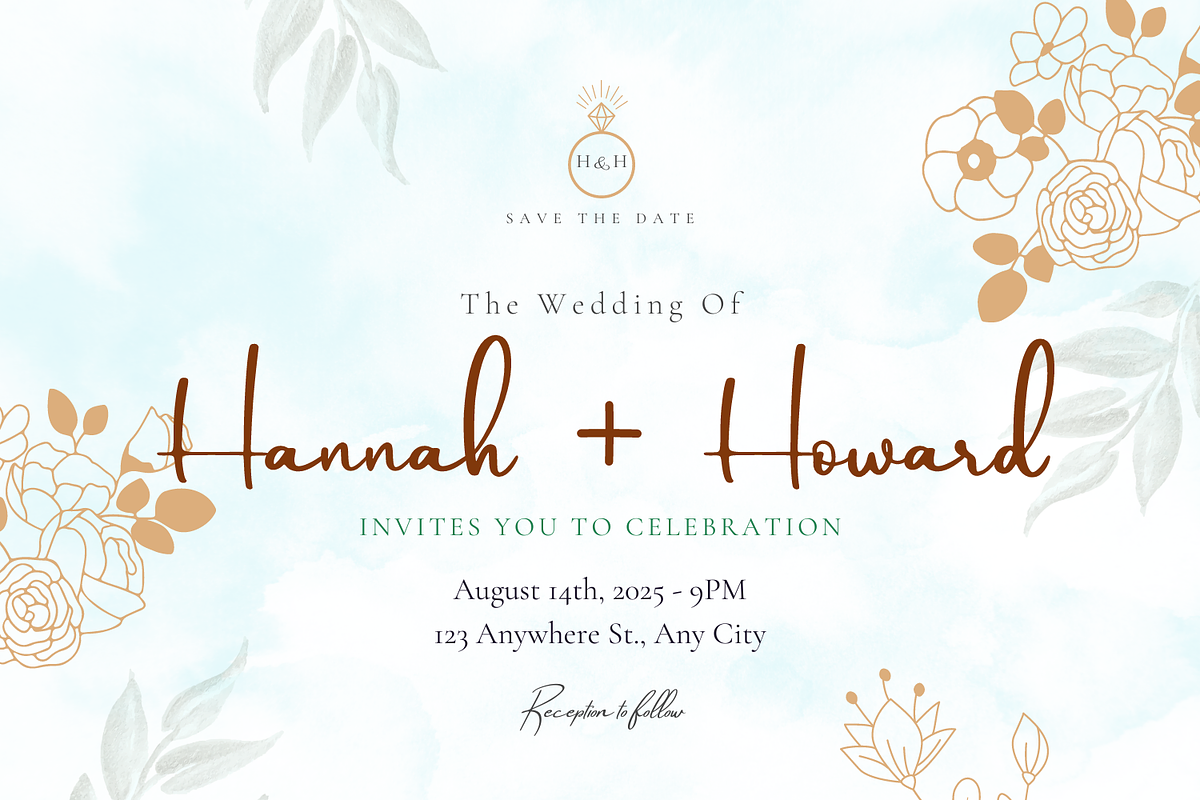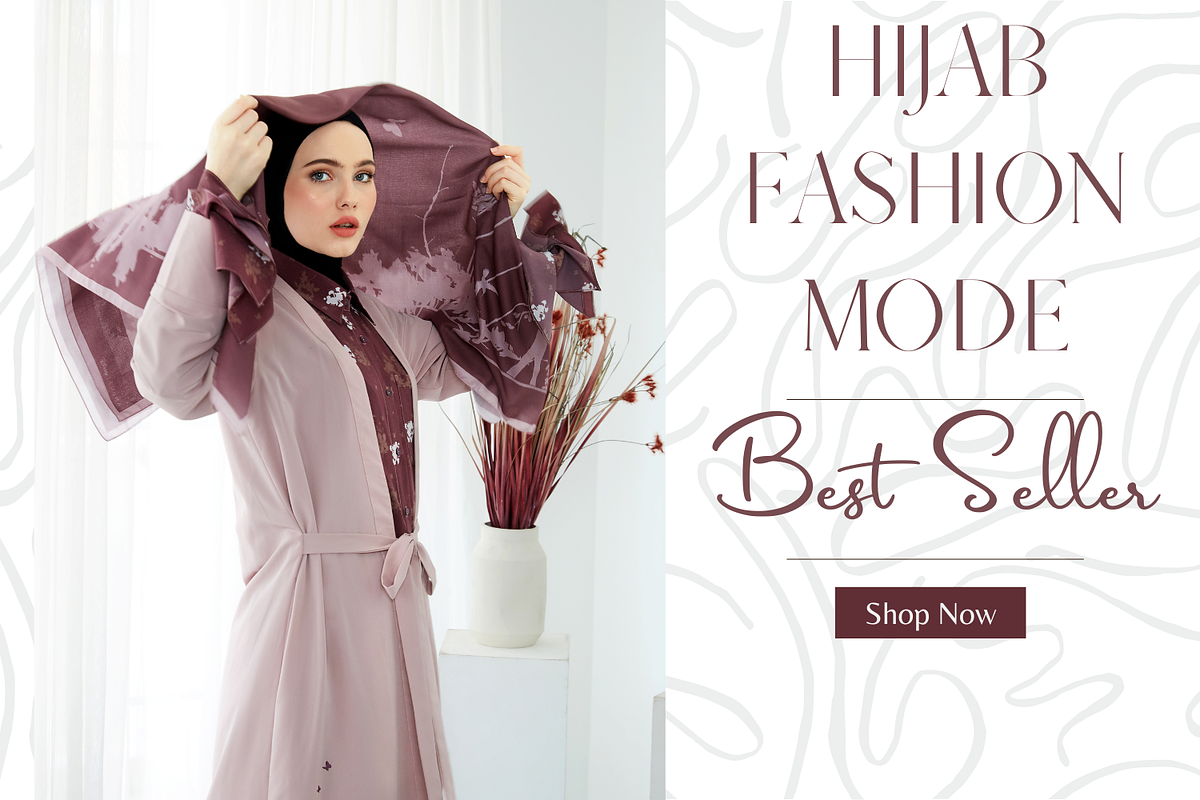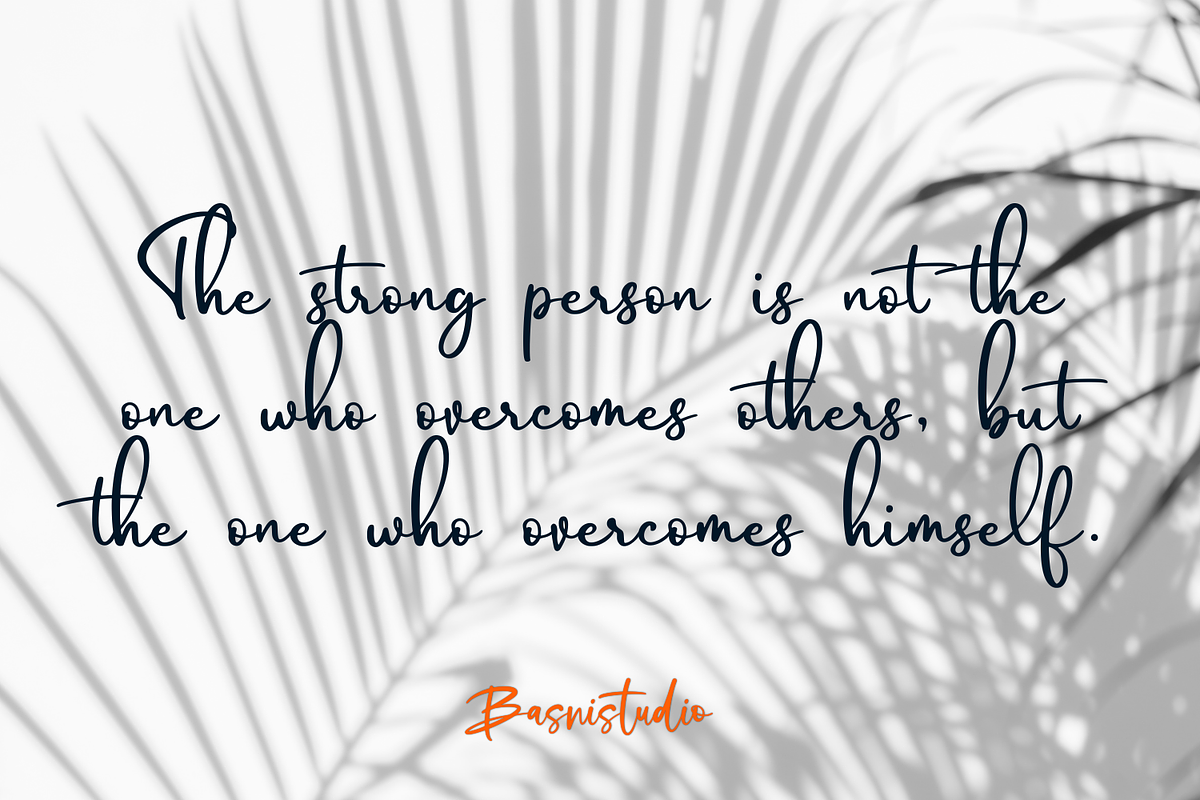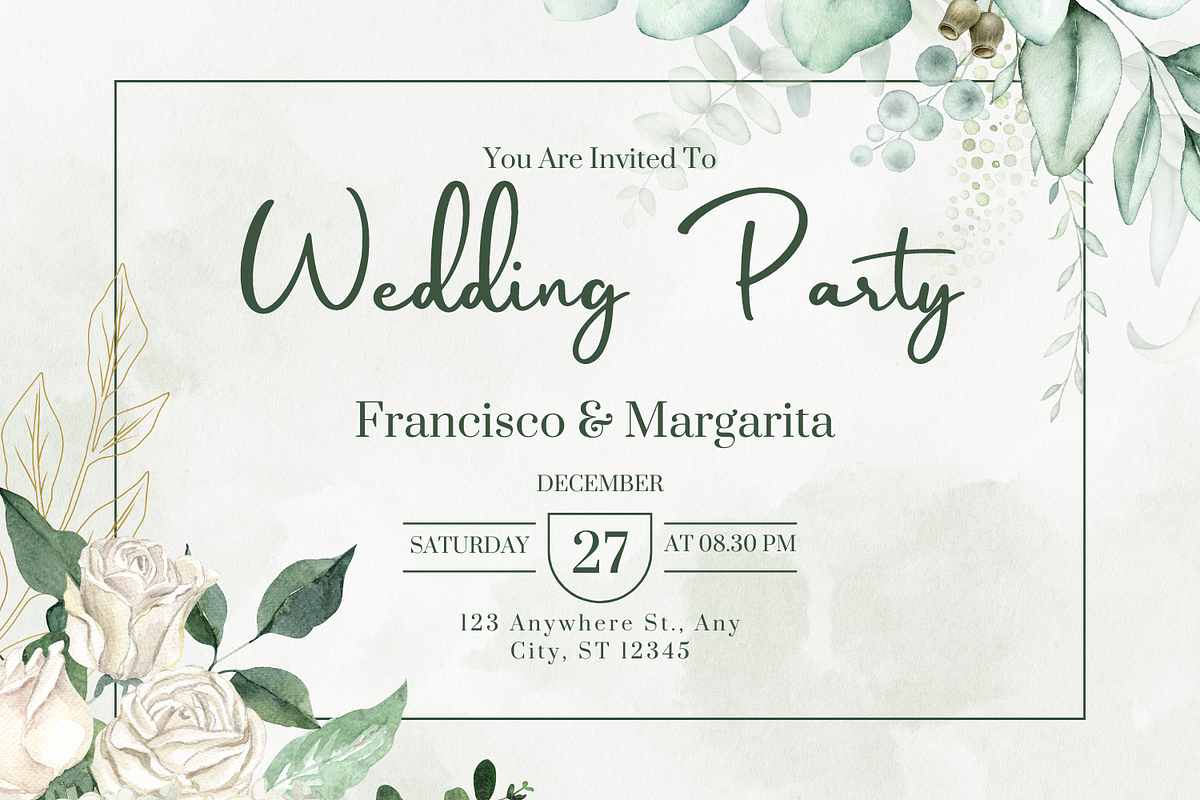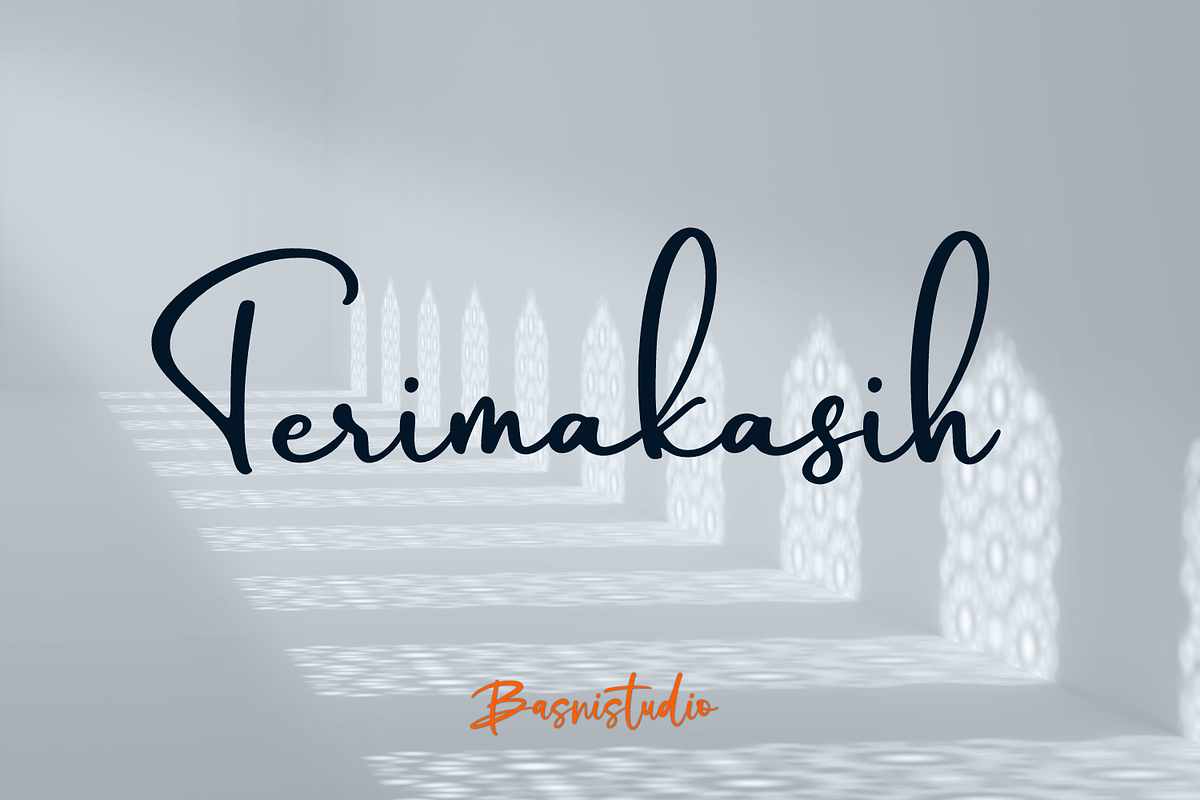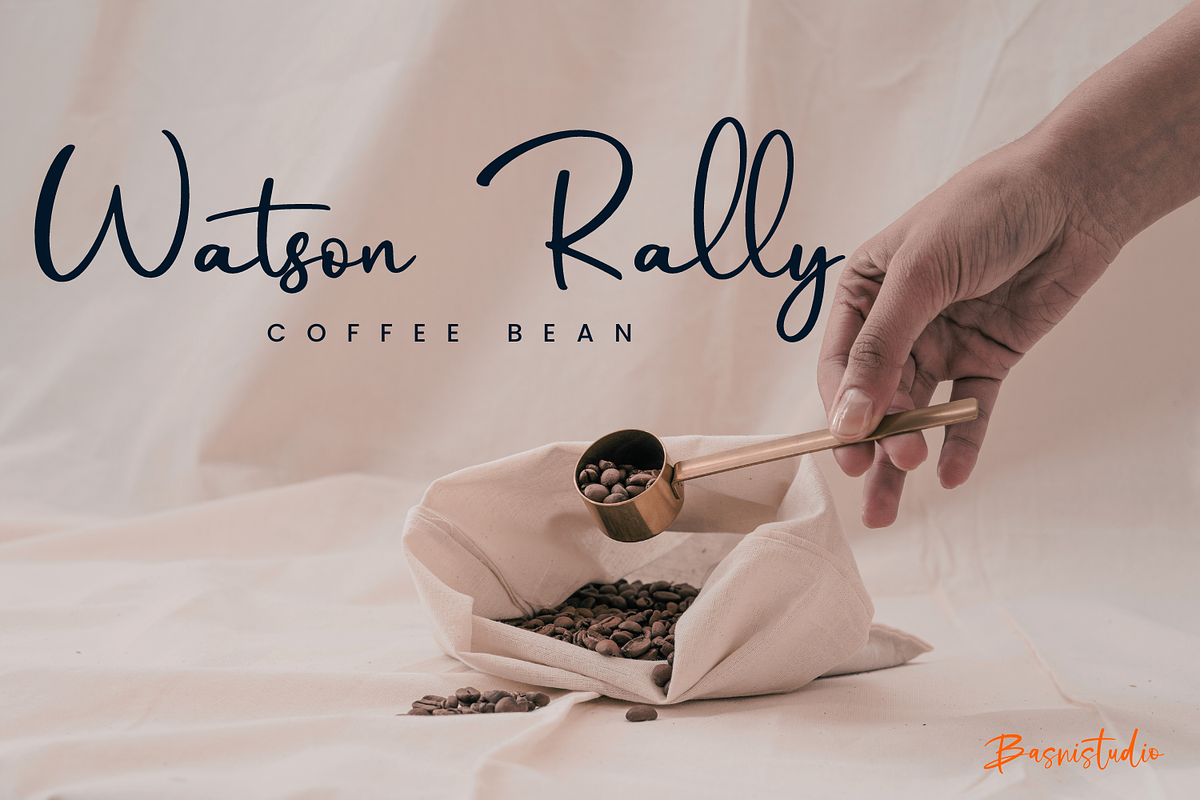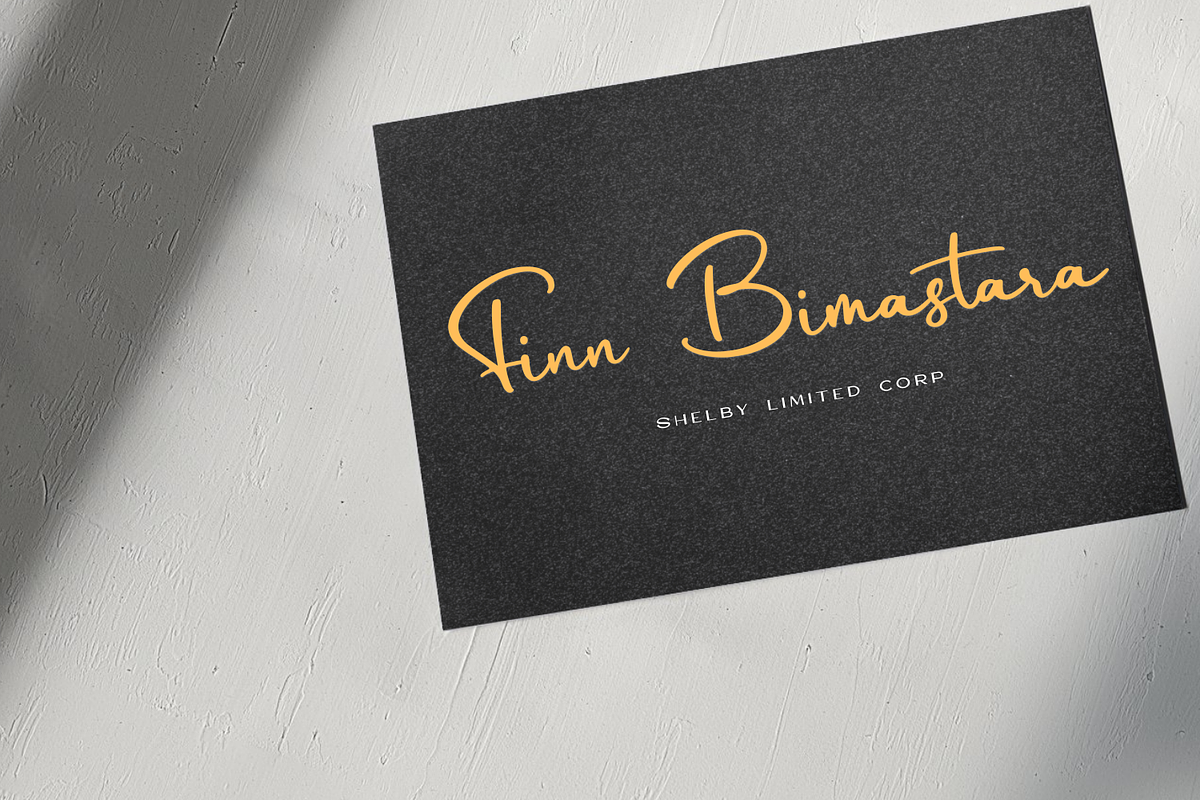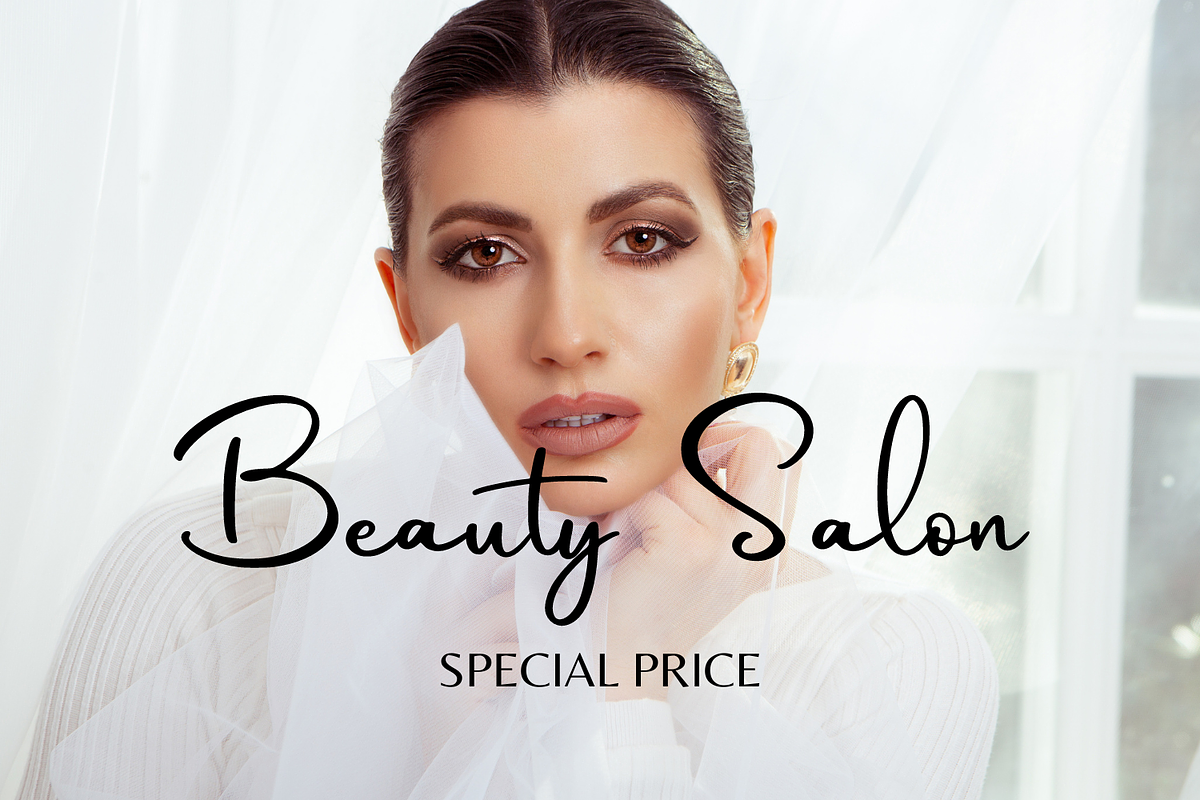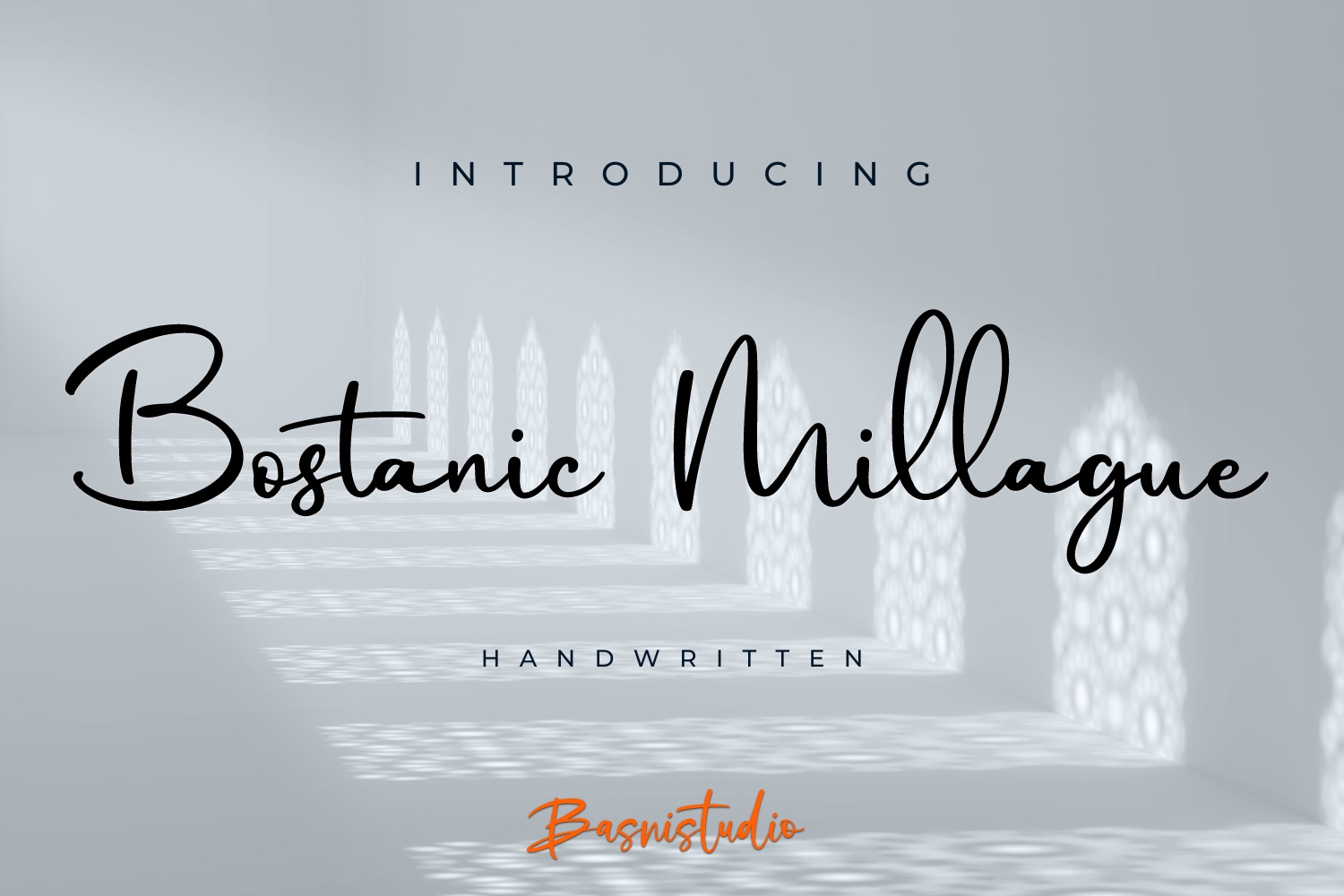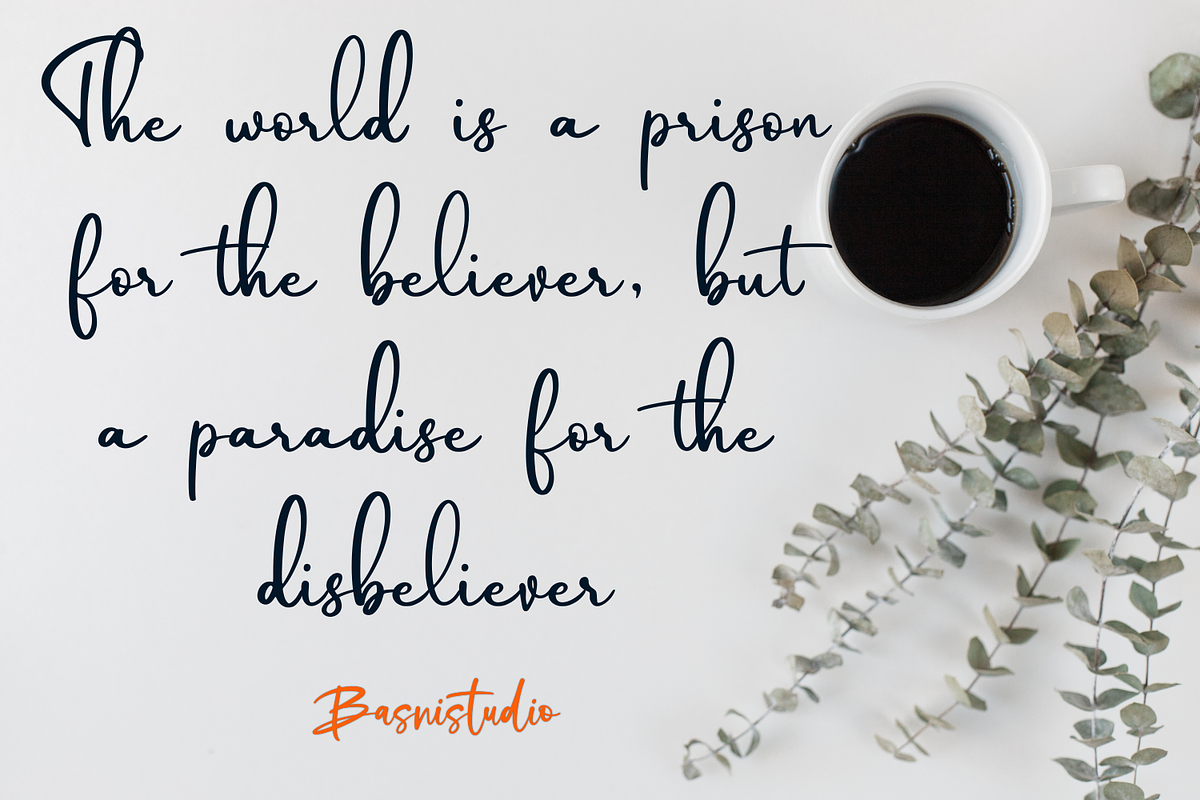
Bostanic Millague Handwritten Font
Introducing Bostanic Millague Handwritten Font
Bostanic Millague Handwritten Font , made with Naturaly & precision, perfect for branding, websites, and editorial designs. Includes all Characters letters, multilingual support, punctuation, binding. everything can be easily accessed using software that supports OpenType. What’s include: